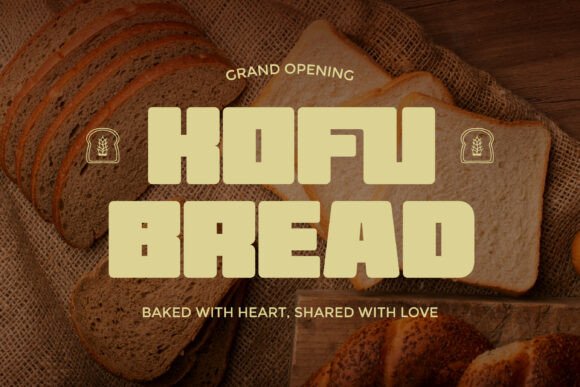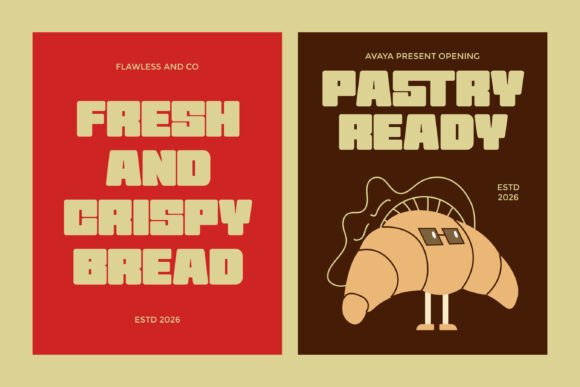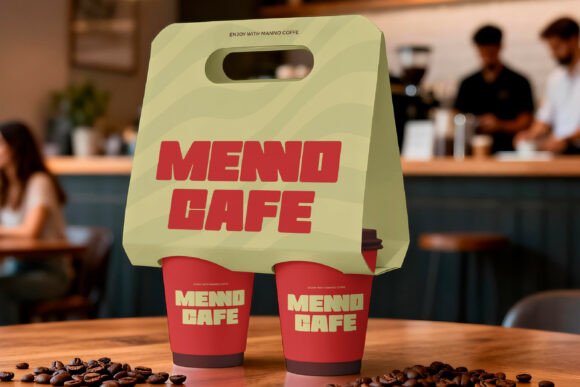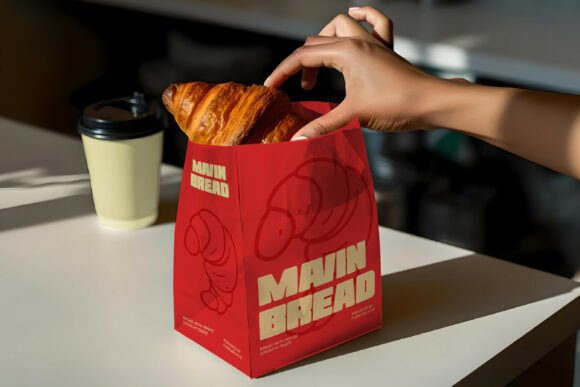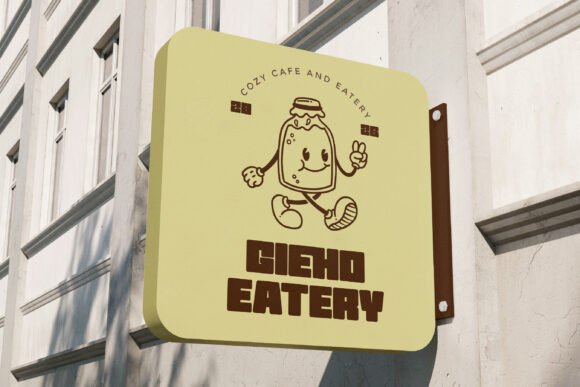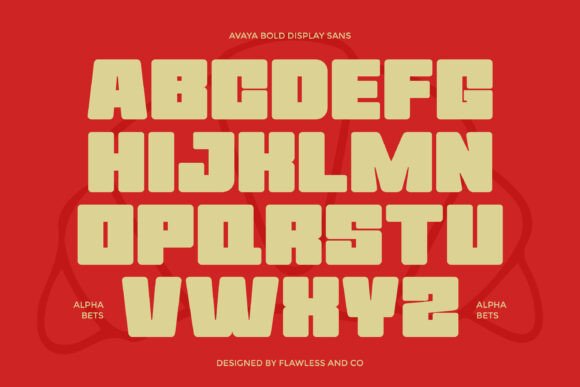
Introducing Avaya Font: A Bold and Friendly Display Typeface
In the world of typography, fonts play a crucial role in conveying the tone and personality of a brand or design. Avaya Font is a bold rounded display sans typeface that has been designed to deliver a strong yet friendly visual impact. With its unique combination of thick letterforms, smooth rounded edges, and balanced proportions, Avaya creates a modern look that feels approachable and full of personality.
The Design Philosophy Behind Avaya
Avaya Font is built on a design philosophy that seeks to balance boldness with approachability. The font’s thick letterforms provide a strong foundation, while its smooth rounded edges add a touch of warmth and friendliness. This balance makes Avaya perfect for designs that want to stand out in a crowded space while still feeling inviting and engaging.
Key Features of Avaya Font
- Bold and Rounded Letterforms: Avaya’s bold letterforms make it perfect for headlines, titles, and branding applications where you want to make a statement.
- Smooth Rounded Edges: The font’s smooth rounded edges soften the bold structure, adding a touch of warmth and approachability to your designs.
- Balanced Proportions: Avaya’s balanced proportions ensure that the font feels harmonious and visually appealing, making it perfect for a wide range of design applications.
Use Cases for Avaya Font
Avaya Font is a versatile typeface that can be used in a variety of design applications, including:
- Branding: Avaya’s bold and friendly personality makes it perfect for branding applications where you want to make a strong impression.
- Headlines: The font’s bold letterforms and smooth rounded edges make it perfect for headlines and titles where you want to grab attention.
- Playful Visuals: Avaya’s approachable and friendly personality makes it perfect for playful visuals, such as illustrations, animations, and cartoons.
Benefits of Using Avaya Font
There are several benefits to using Avaya Font in your designs, including:
- Unique Personality: Avaya’s bold and friendly personality sets it apart from other fonts, making it perfect for designs that want to stand out.
- Versatility: The font’s versatility makes it perfect for a wide range of design applications, from branding to headlines and playful visuals.
- Clean and Confident Typography: Avaya brings a clean and confident typographic style to your designs, making it perfect for designers and crafters who want to create professional-looking work.
Tips for Using Avaya Font Effectively
Here are some tips for using Avaya Font effectively in your designs:
- Use it for Headlines: Avaya’s bold letterforms make it perfect for headlines and titles where you want to grab attention.
- Pair it with Other Fonts: Avaya can be paired with other fonts to create a unique and visually appealing typographic style.
- Experiment with Colors: Avaya’s bold and friendly personality makes it perfect for experimenting with different colors and textures.
Avaya Font is a bold rounded display sans typeface that has been designed to deliver a strong yet friendly visual impact. With its unique combination of thick letterforms, smooth rounded edges, and balanced proportions, Avaya creates a modern look that feels approachable and full of personality. Whether you’re a designer or crafter, Avaya is a versatile typeface that can be used in a wide range of design applications, from branding to headlines and playful visuals.